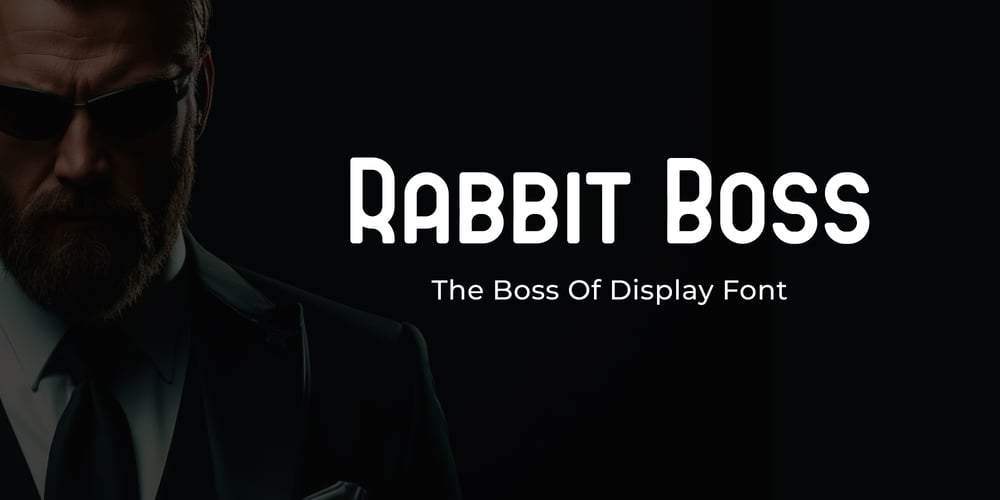
Rabbit Boss Font Family was designed by Agustian Eko Saputro, Aprilia Nurina Putri and published by Mightyfire. Rabbit Boss contains 1 styles and family package options. Hi! Rabbit Boss is here.This typeface has a clean, modern and firm looks.This font use capital letters for all letter but has a ‘cute’ looks.If you want to write a book title, headline or magazine title, we suggest to use this font.We’re honored and proud if Rabbit Boss can be the part of your special works. Thankyou.